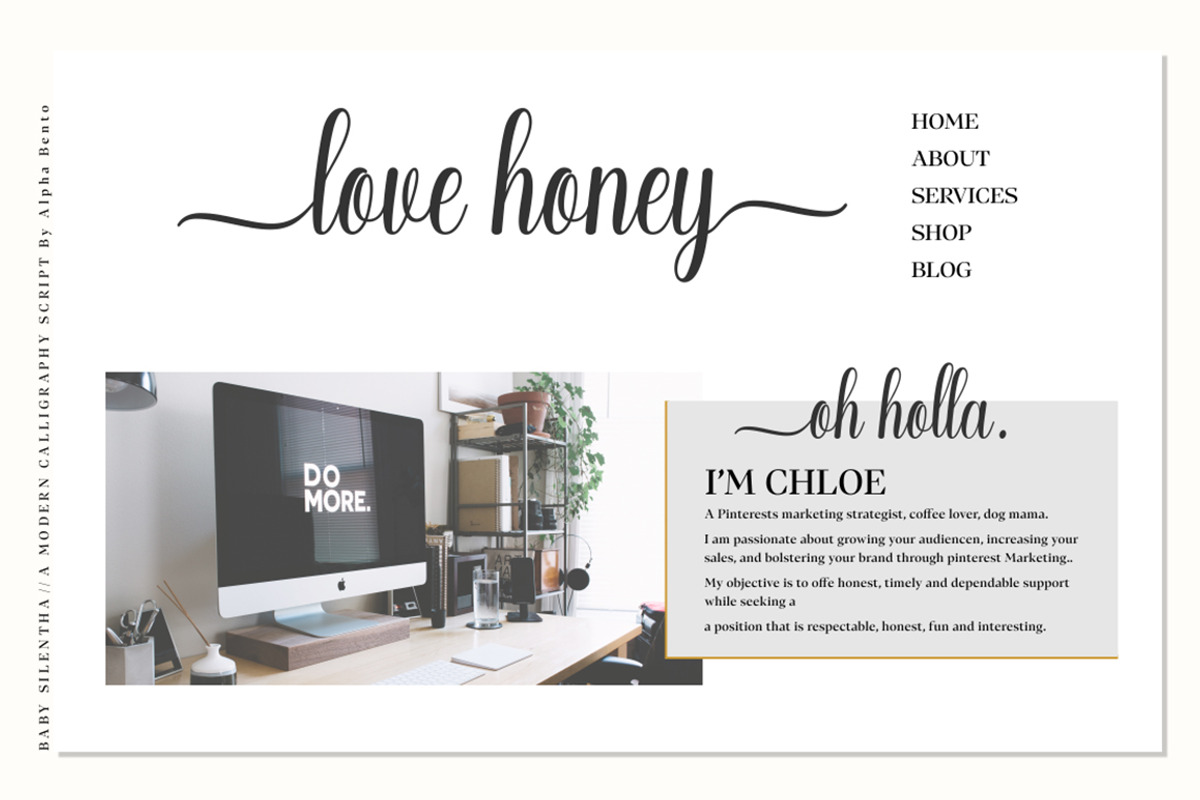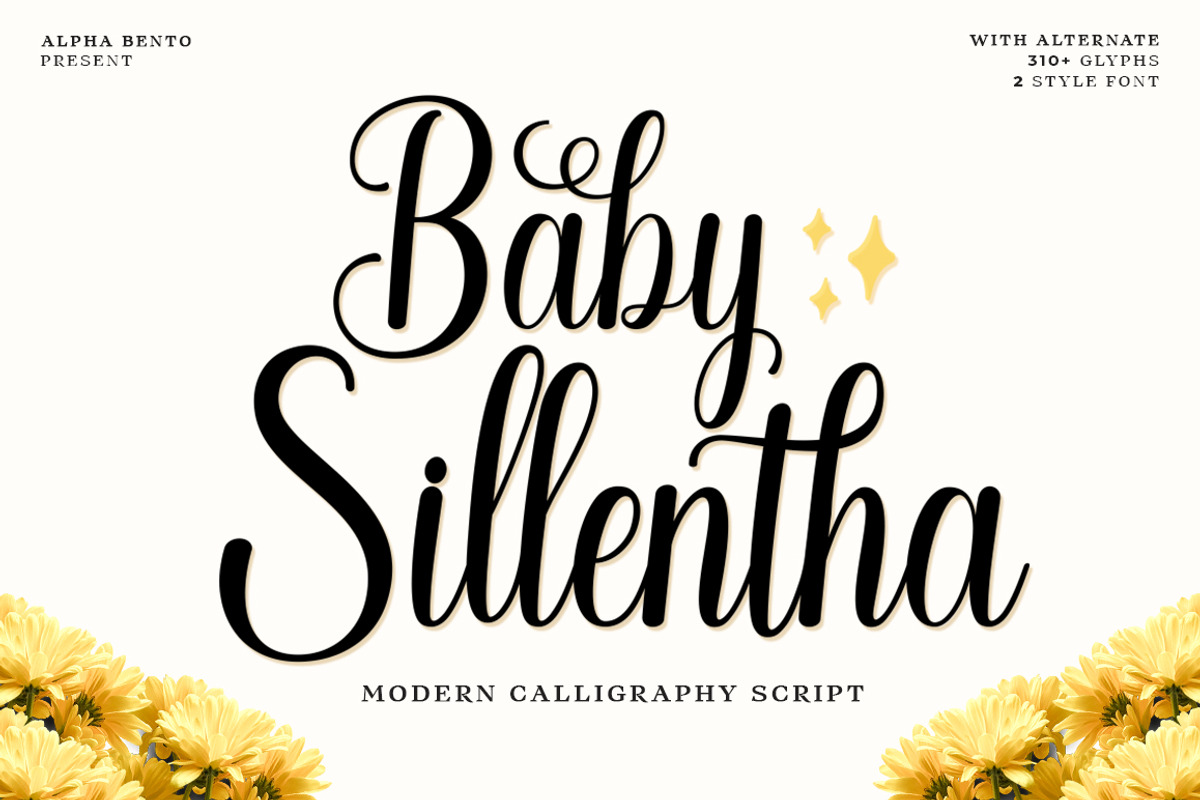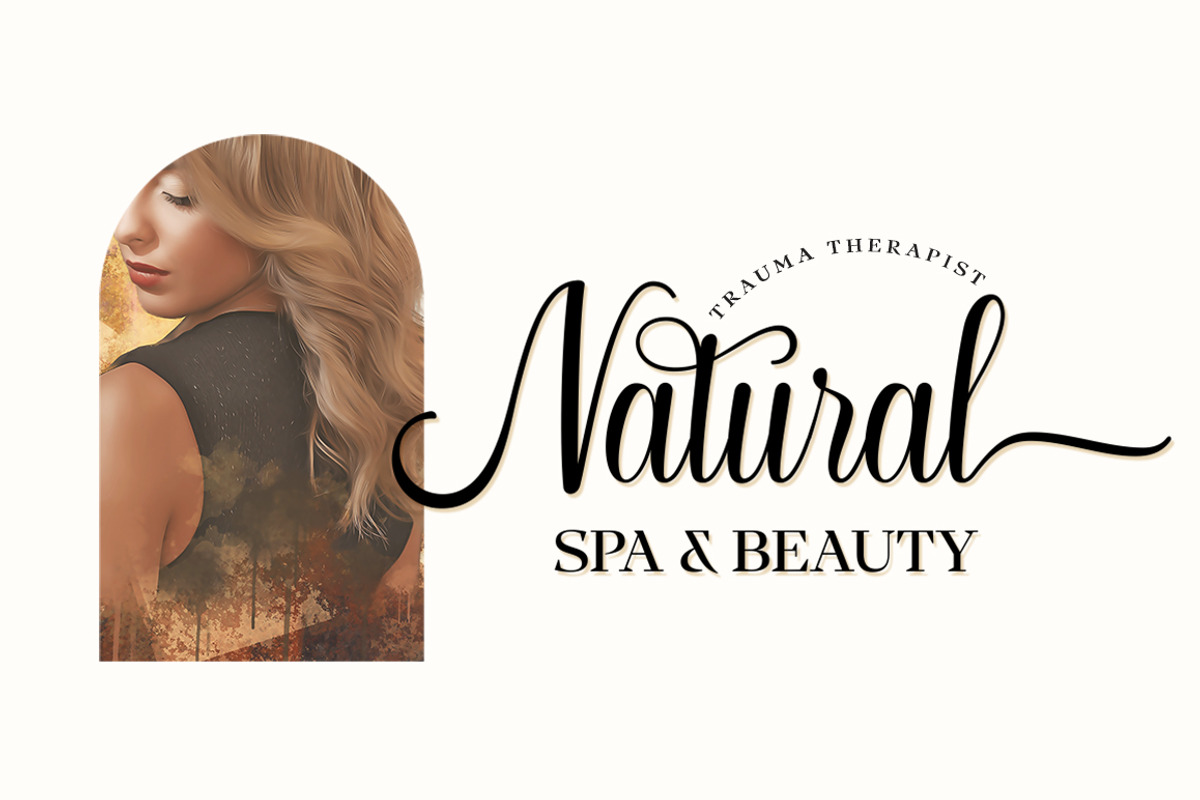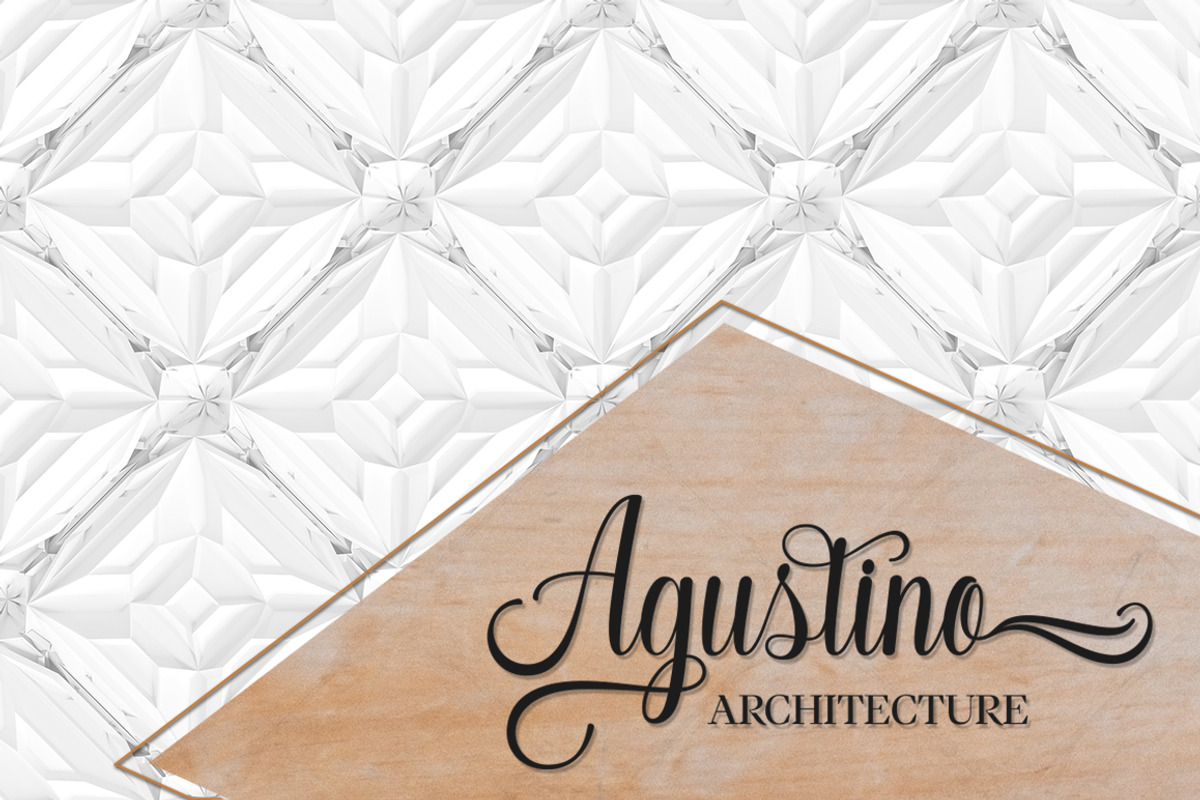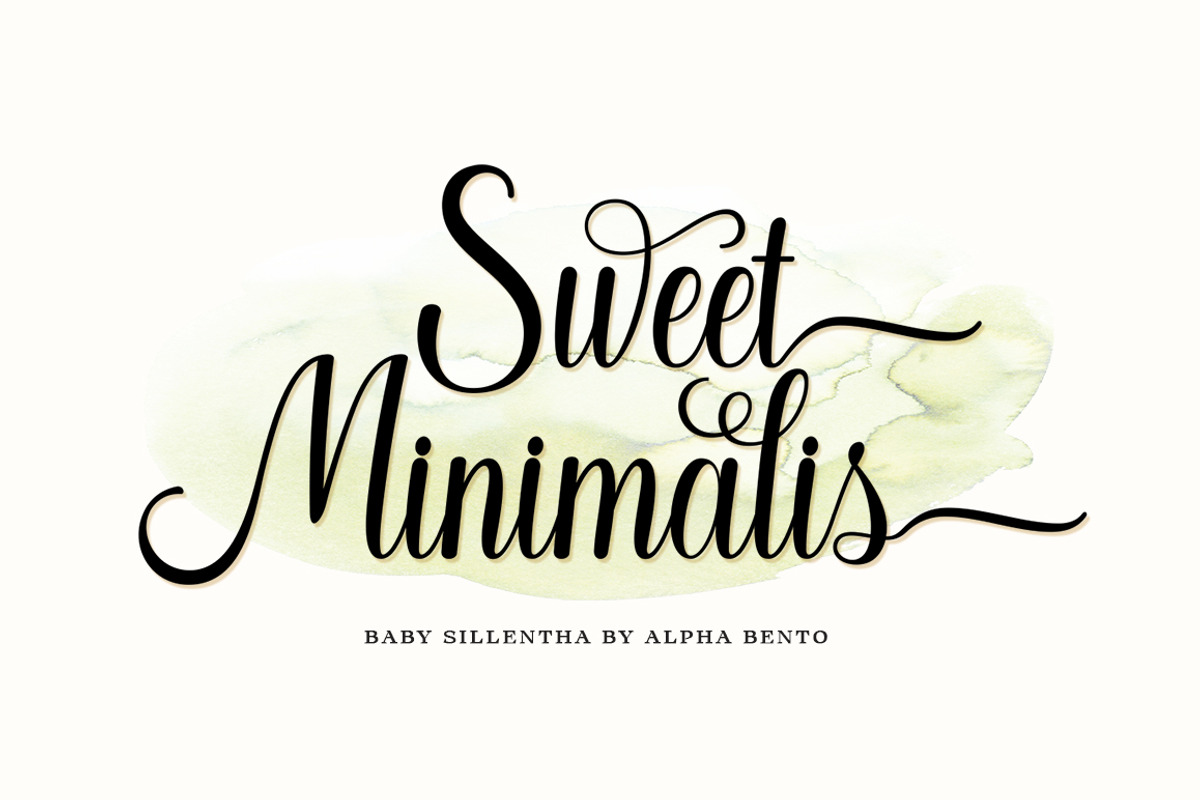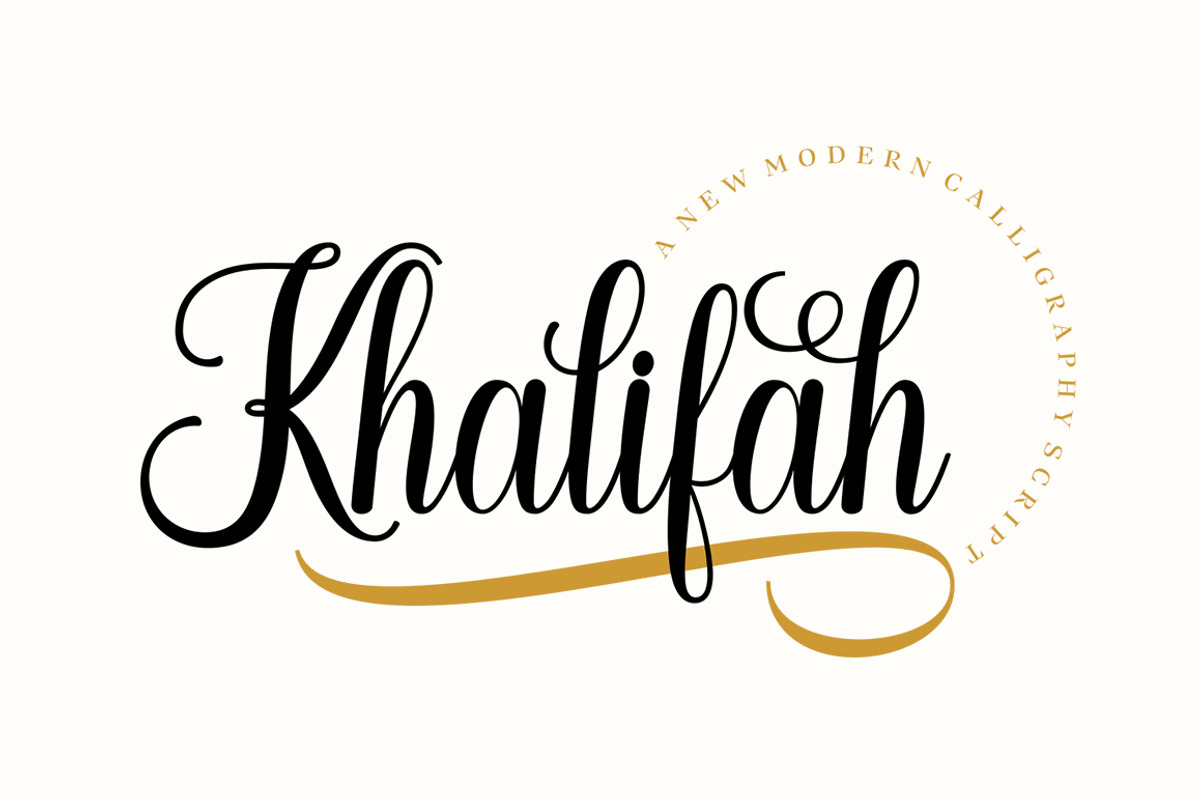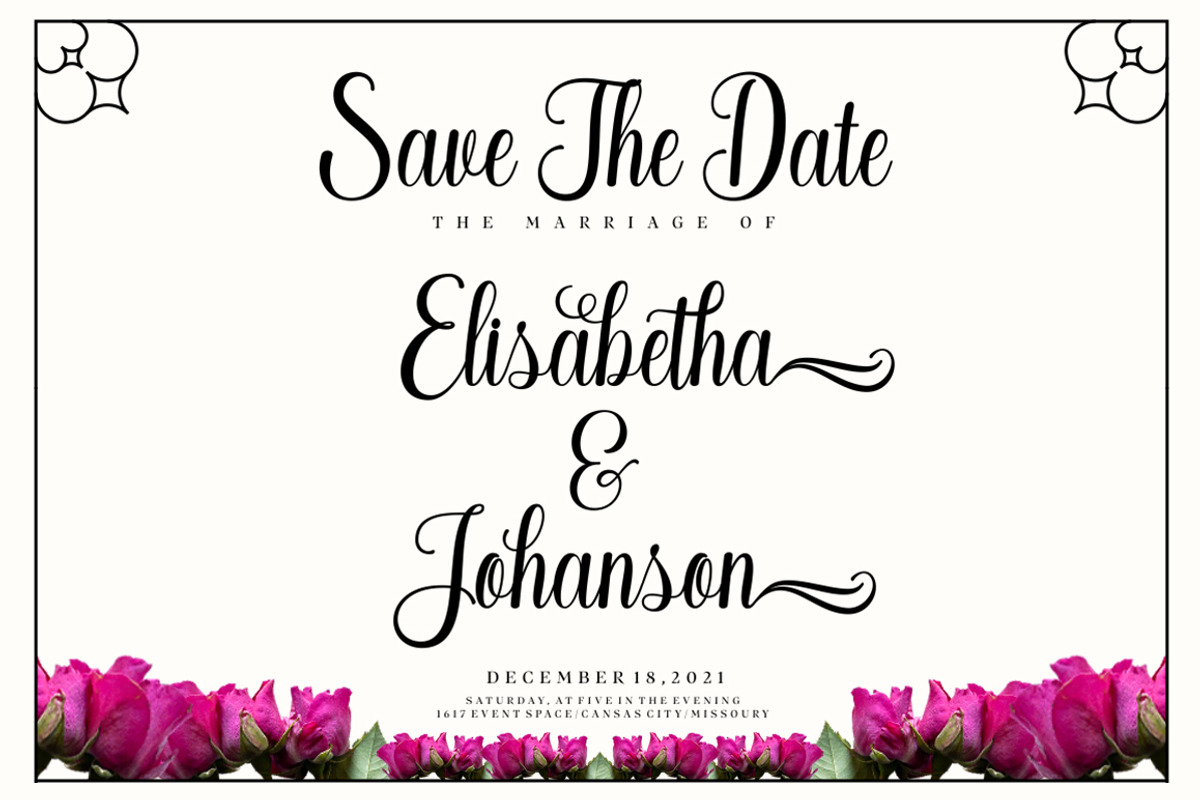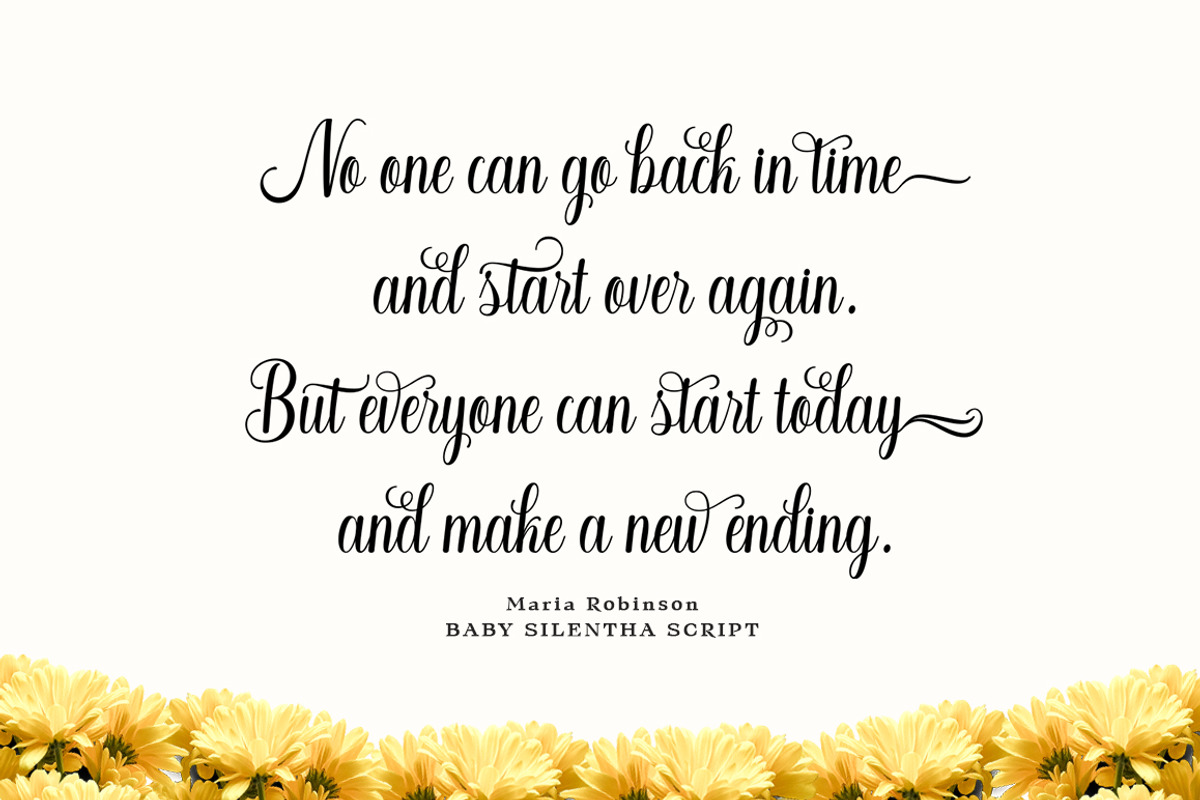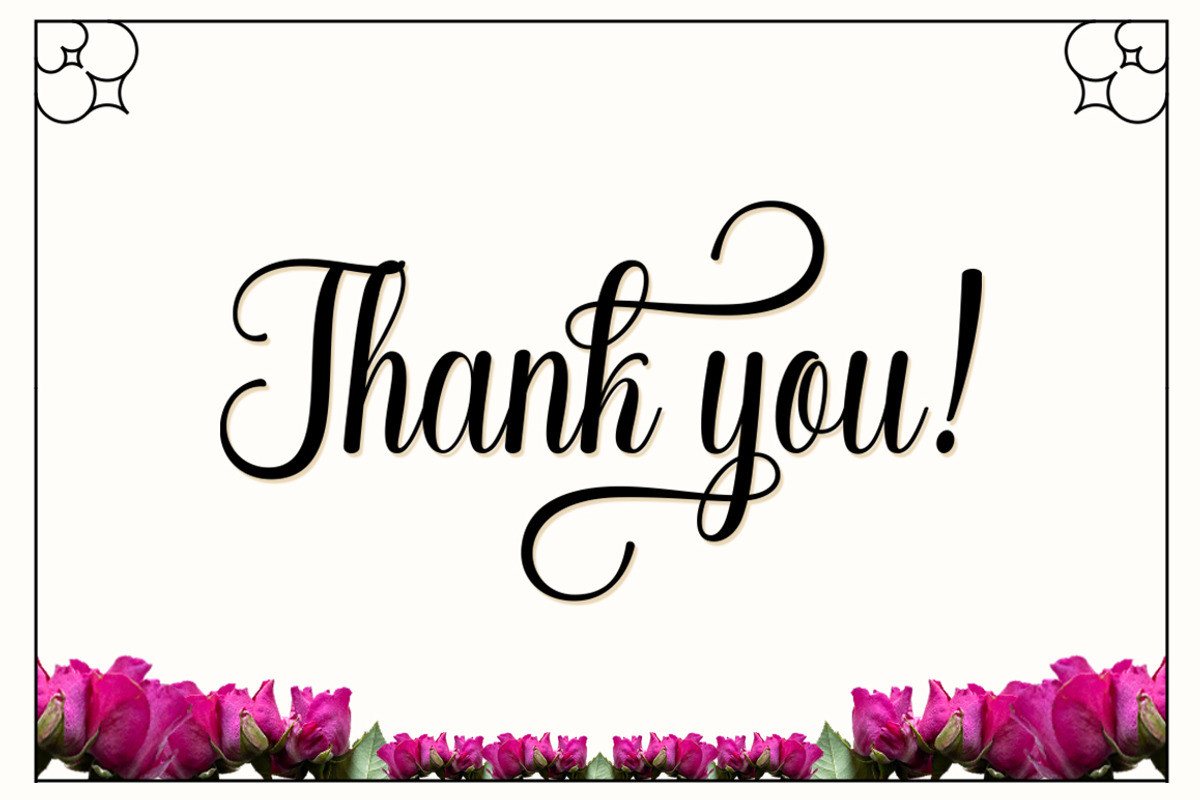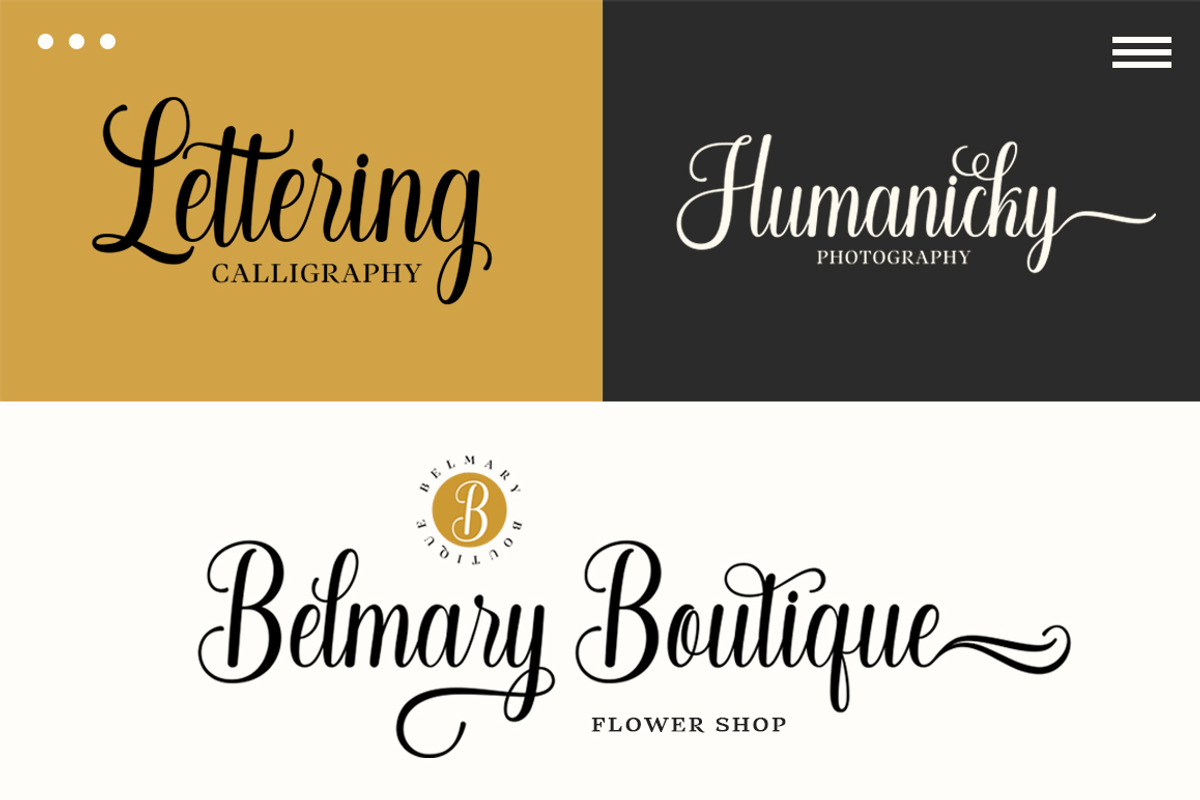
Baby Sillentha Script
Introducing
Baby Sillentha Script
Baby Sillentha Script a fresh & modern new script with a handcrafted calligraphy style, decorative characters and dancing baseline! Very pretty for invitations such as greeting cards, branding materials, business cards, quotes, posters and more!!
Baby Sillentha Script